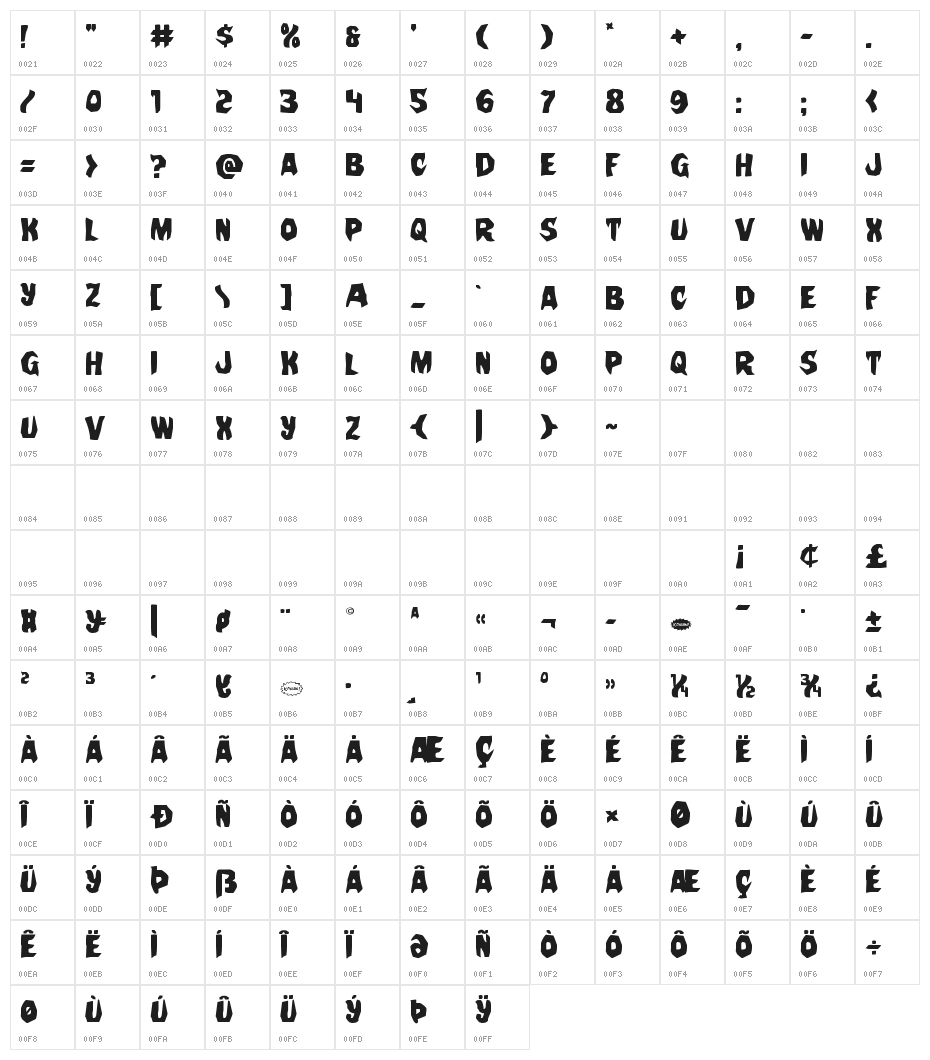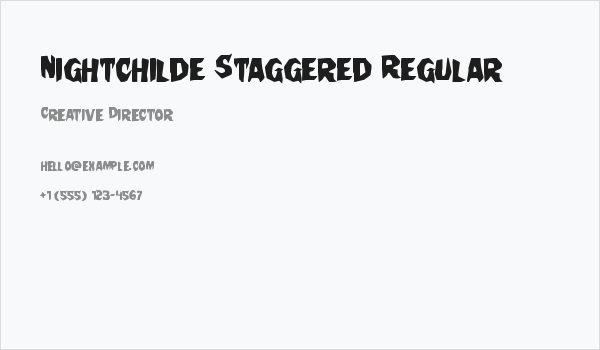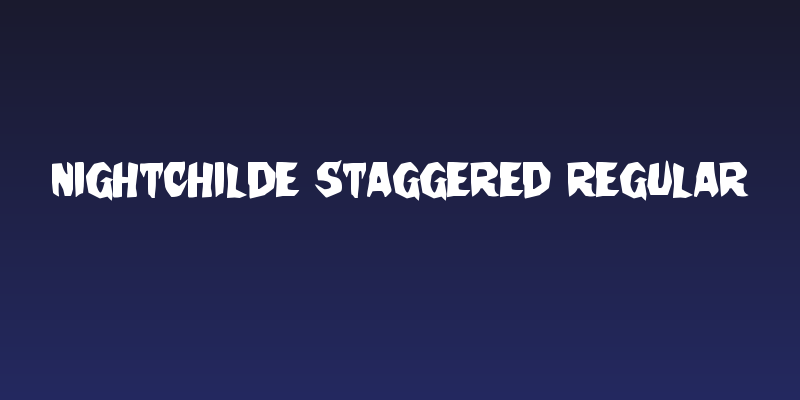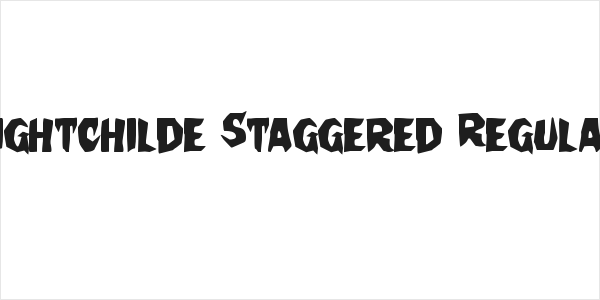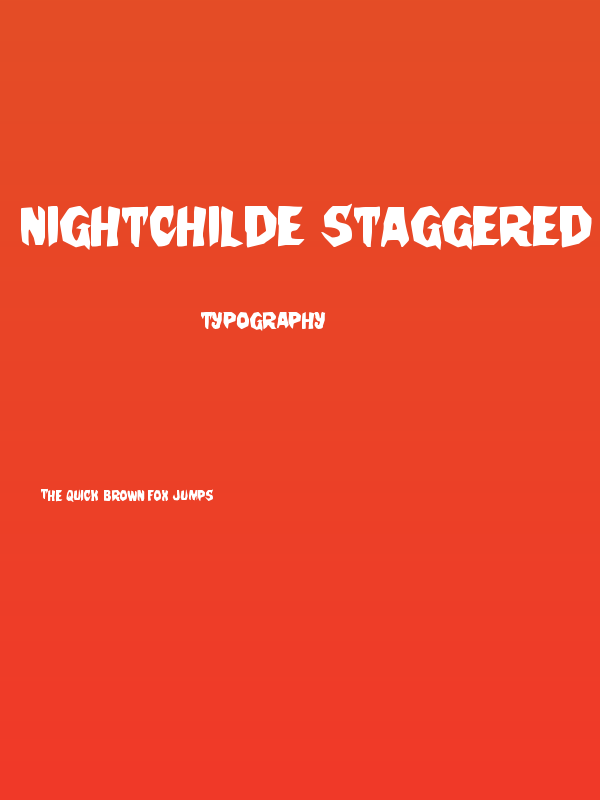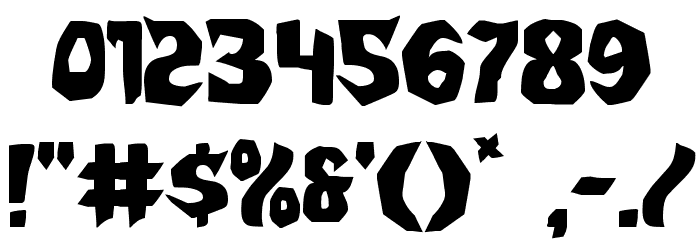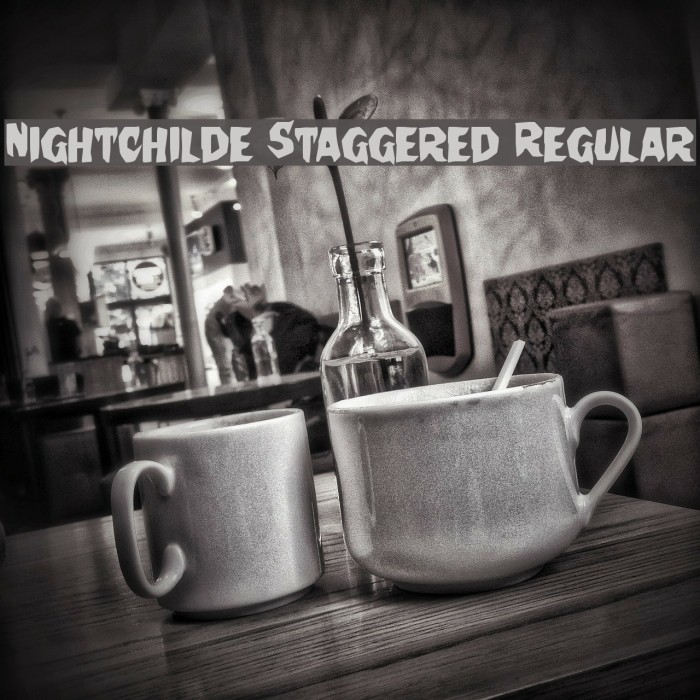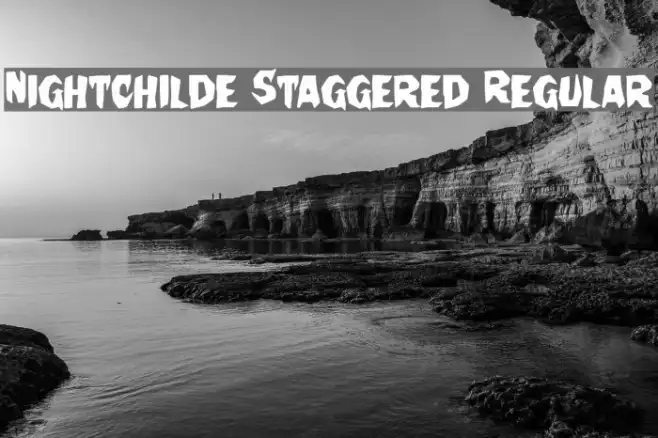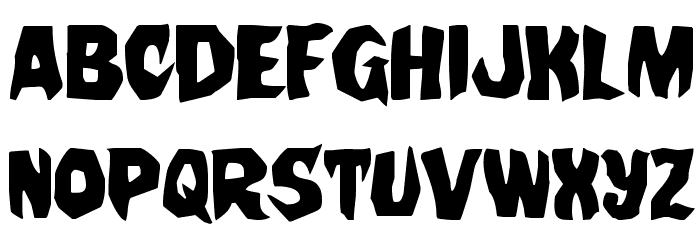
Nightchilde Staggered Regular Font
Nightchilde Staggered Regular Description
This font features a bold, jagged style with irregular edges, giving it a dynamic and edgy appearance. The characters are heavily stylized, with sharp angles and a slightly chaotic form that suggests movement and energy. Each letter and number is unique, contributing to a sense of individuality and creativity. The font is highly decorative, making it suitable for eye-catching designs. The uppercase and lowercase letters maintain a consistent style, while the numbers and special characters complement the overall aesthetic. This font is ideal for projects that require a strong visual impact.
| Proposed Projects | Perfect for posters, album covers, video game graphics, and any project needing a bold, artistic touch. |